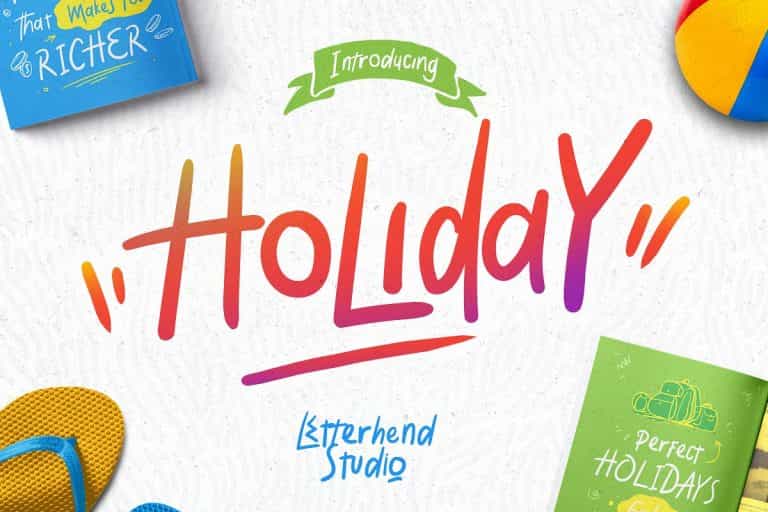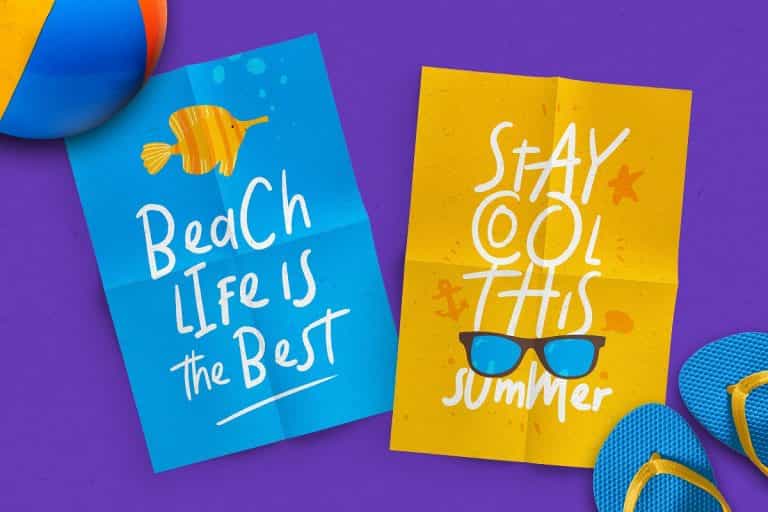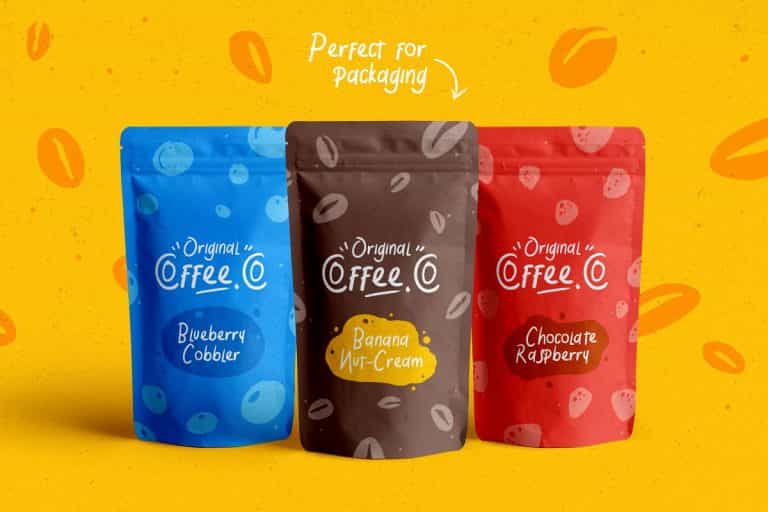
Introducing Holiday Font. Holiday designed by Letterhend. The classic form with a modern twist. Suitable for many type design projects such as vintage logo, fashion apparel, special card header, badges, food packaging designs, especially wine labels wedding, event, invitation, escort card, table number, header menus, display, logos, slider blog, custom address, stamps, packaging, greeting card, etc.